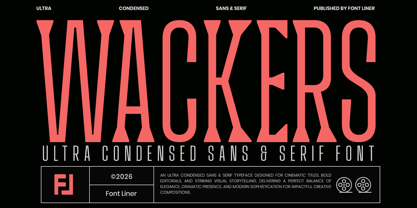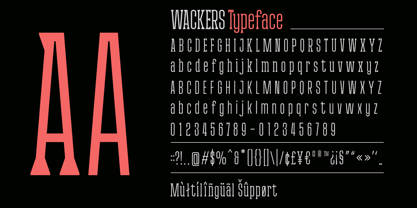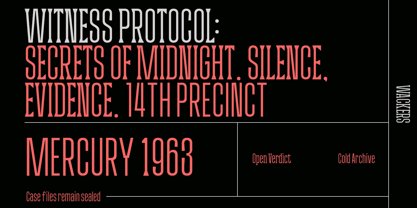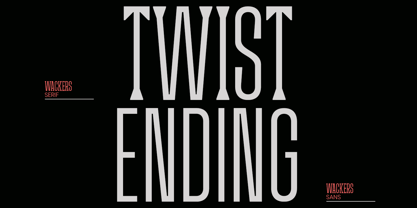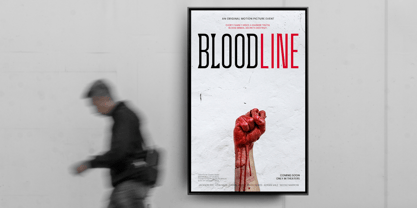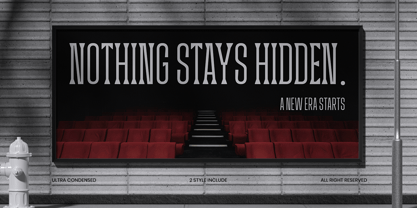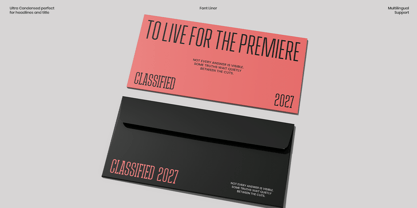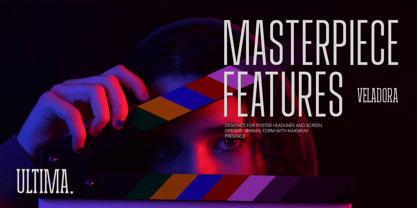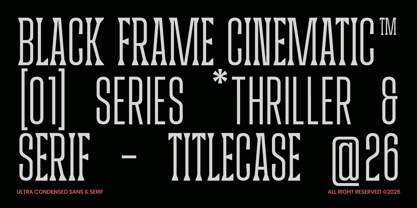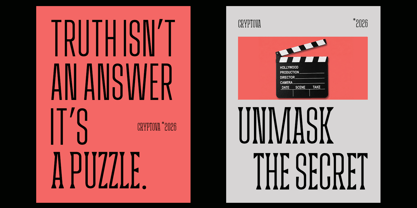
Wackers
The Wackers Font Family was designed by Ghina Luthfiarieska and published by Font Liner. Wackers contains 4 styles and family package options. More about this family
Wackers is a striking ultra condensed font duo that combines the timeless elegance of serif typography with the clean precision of modern sans-serif design. Crafted for designers who want maximum visual impact with minimal space, Wackers delivers a dramatic vertical rhythm perfect for contemporary branding, cinematic titles, luxury editorials, fashion campaigns, and premium packaging.
Its distinctive tall proportions, sharp details, and sophisticated character structure create a commanding presence that instantly captures attention. The serif style adds a refined vintage-inspired personality, while the sans version offers a clean and modern aesthetic, allowing you to seamlessly adapt your designs across a wide range of creative projects.
Wackers is perfect creating movie posters, magazine headlines, luxury branding systems, product packaging, advertising campaigns, or high-end social media content, Wackers provides the versatility and elegance needed to elevate your visual storytelling. Designed to stand out in large display sizes, this font duo brings a bold editorial feel while maintaining excellent readability and professional appeal.